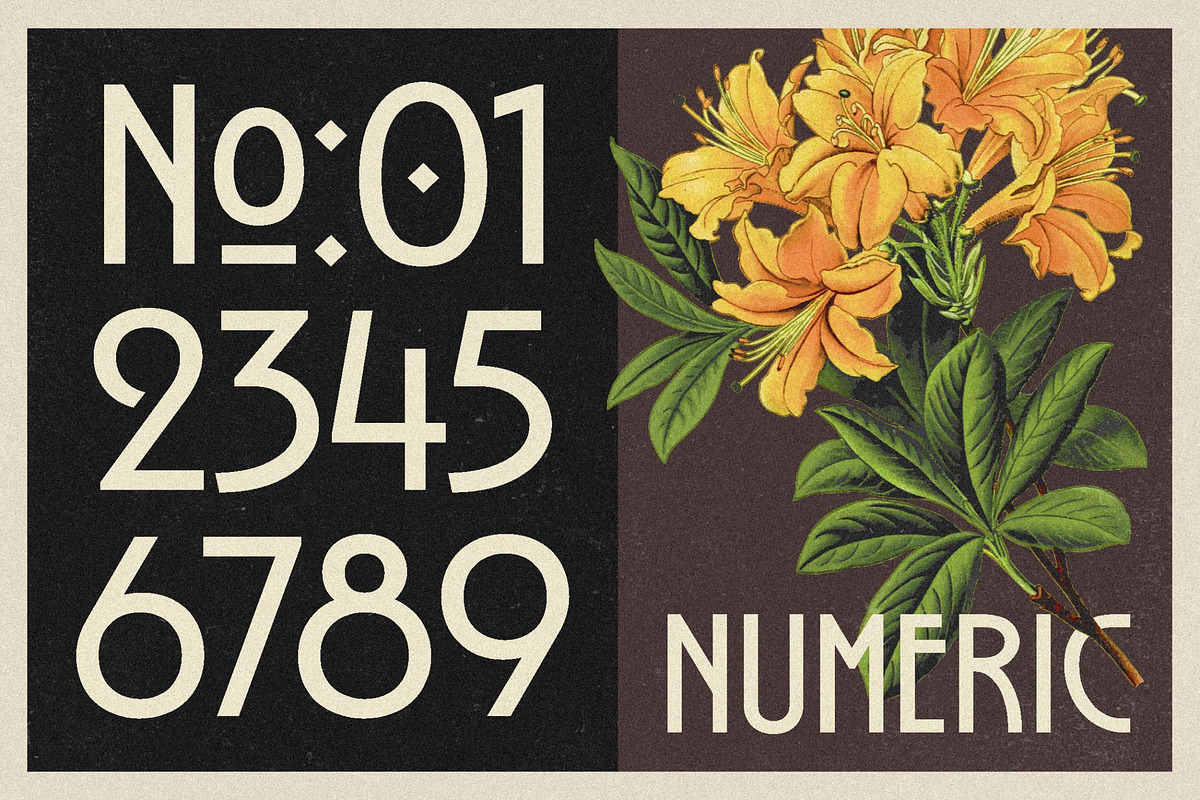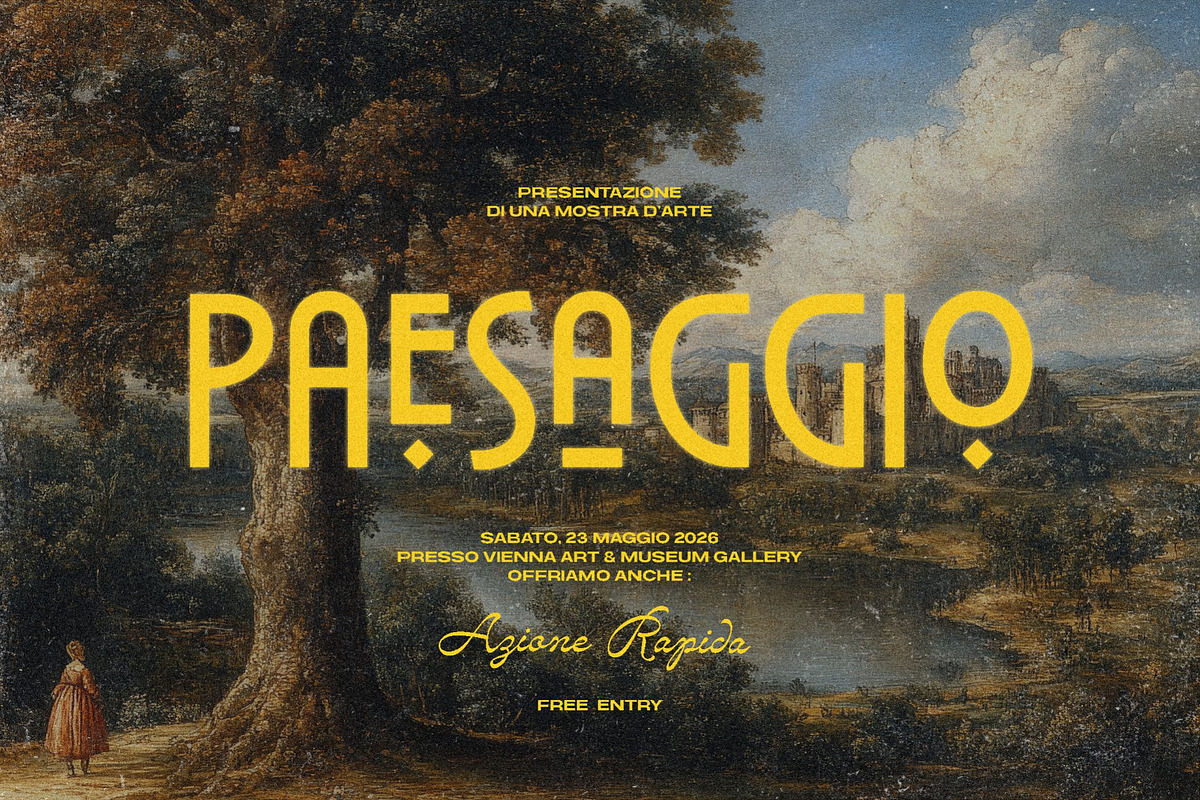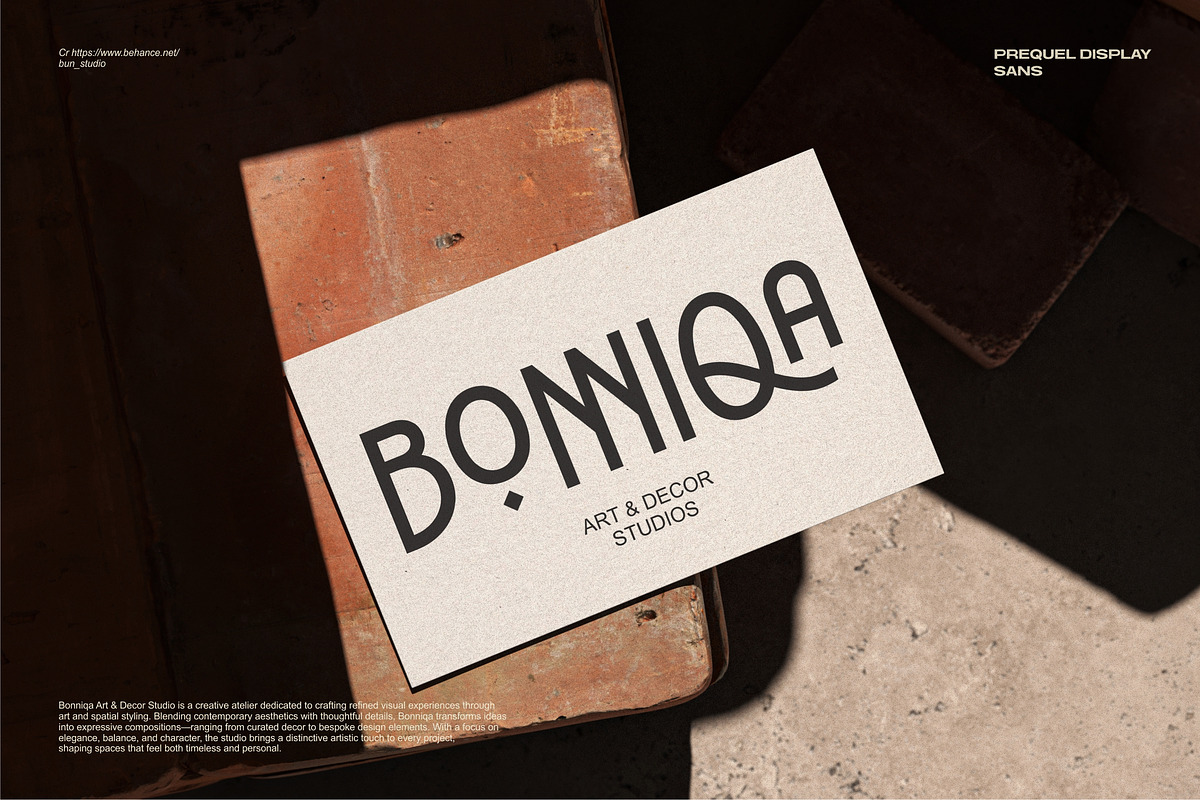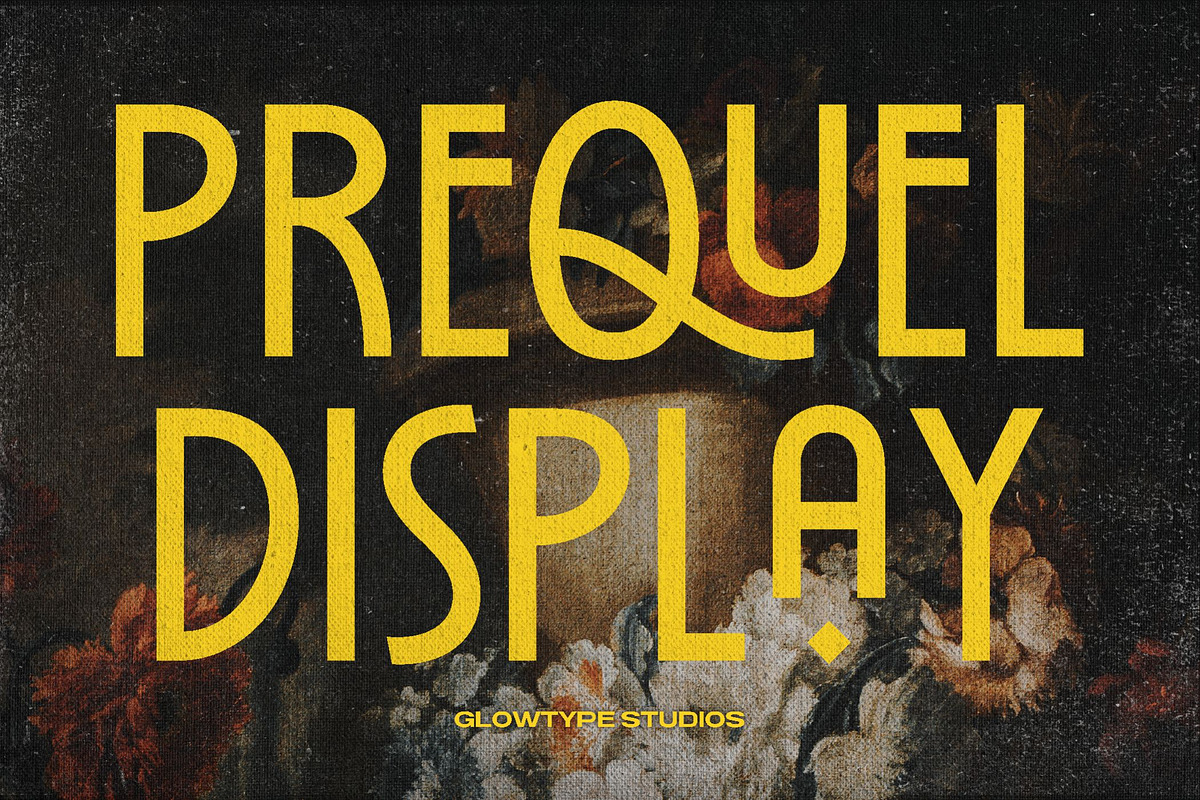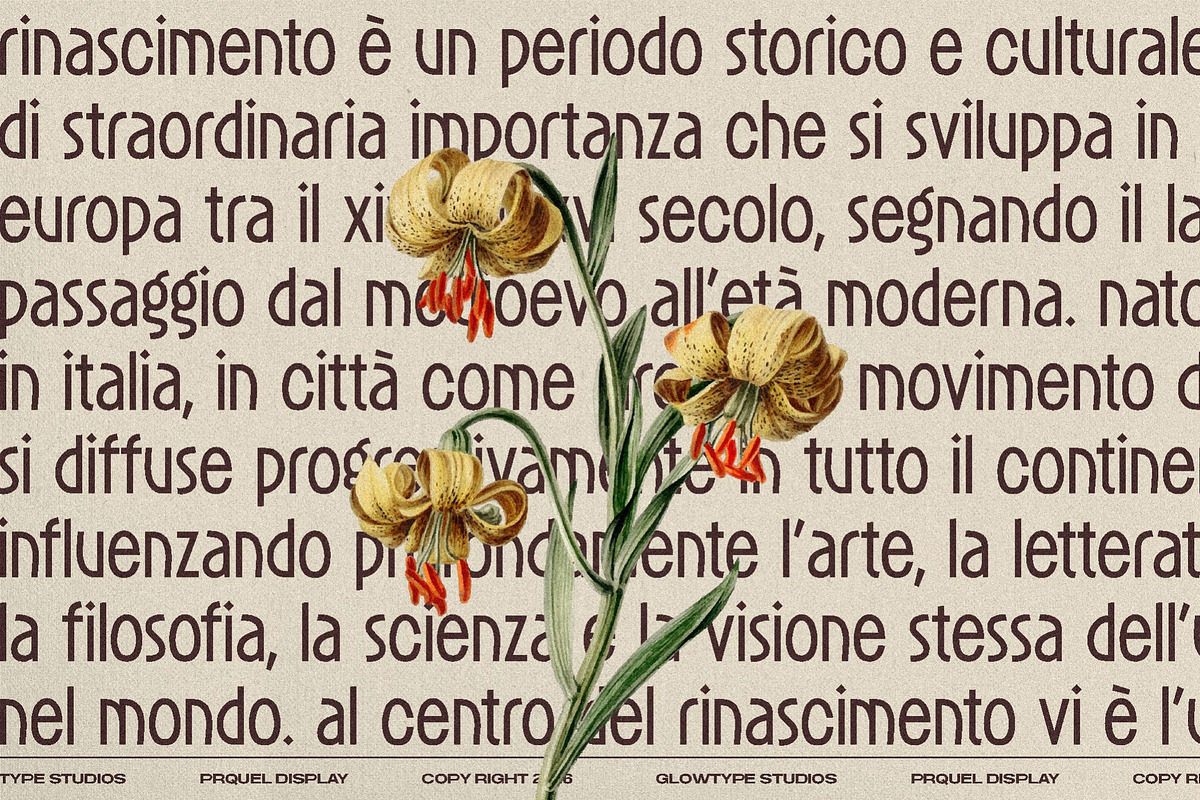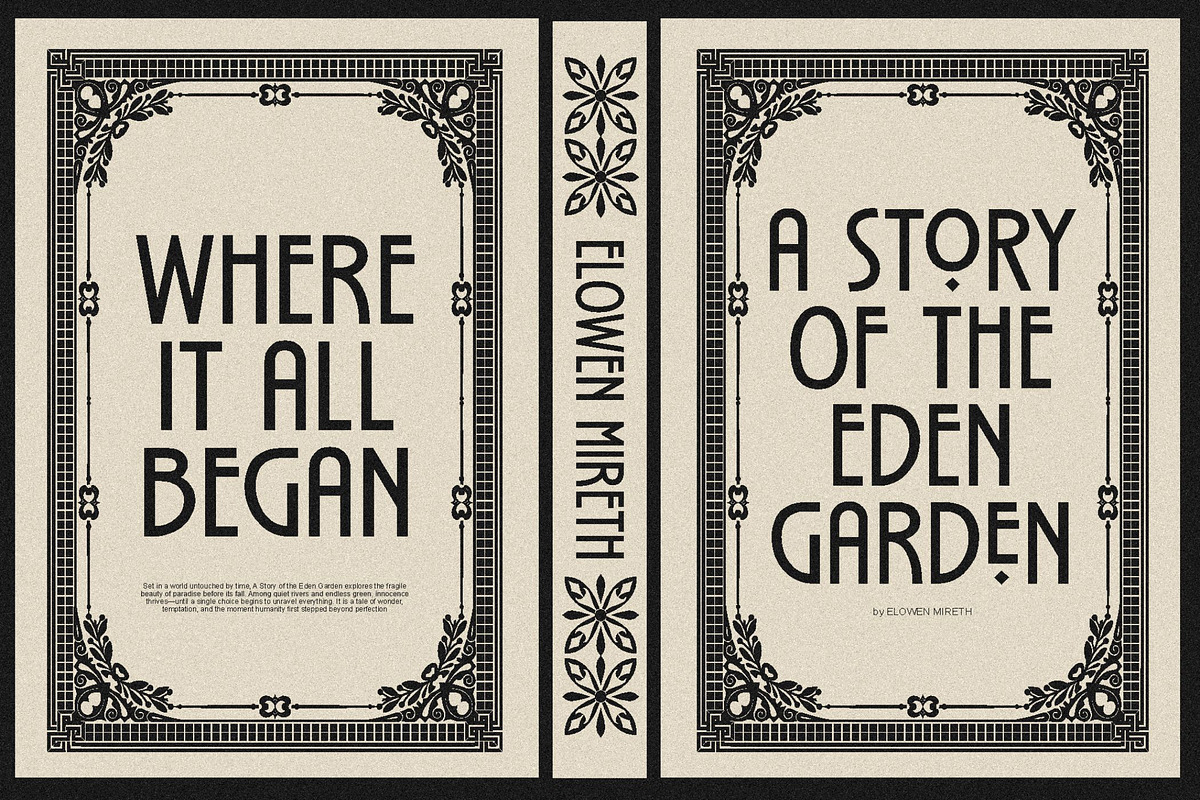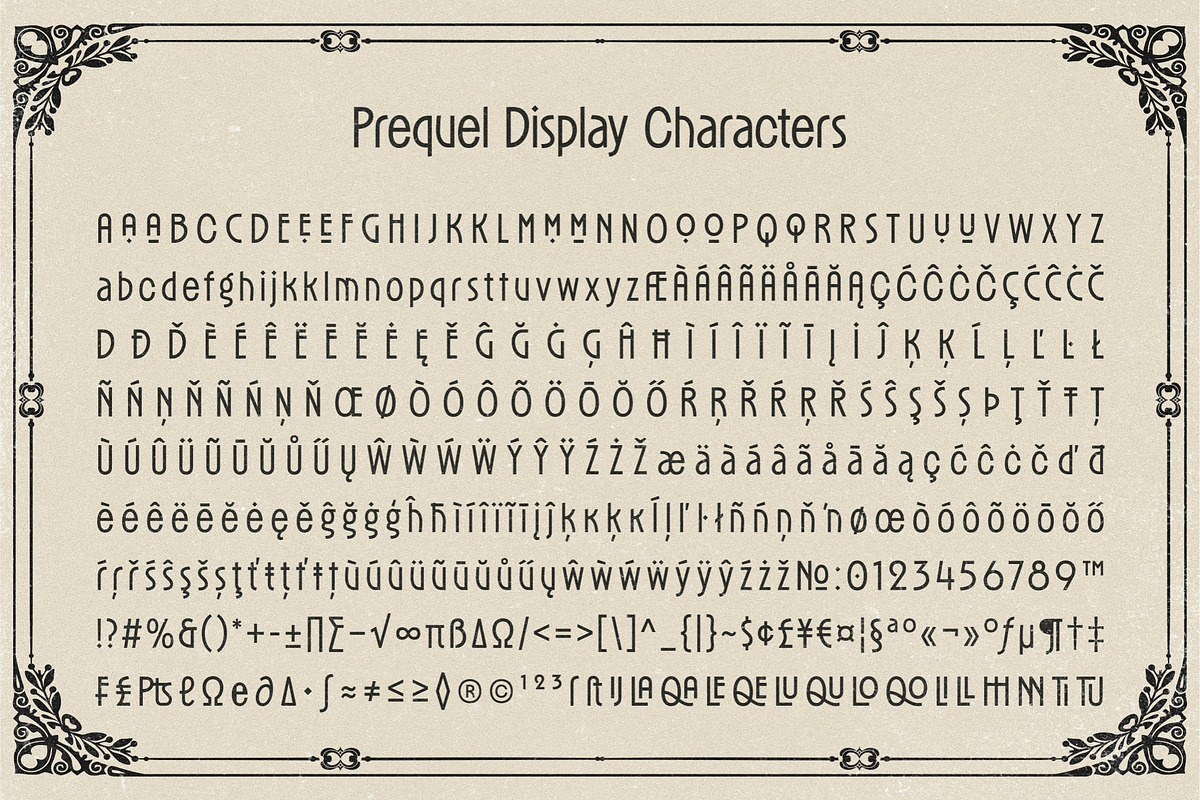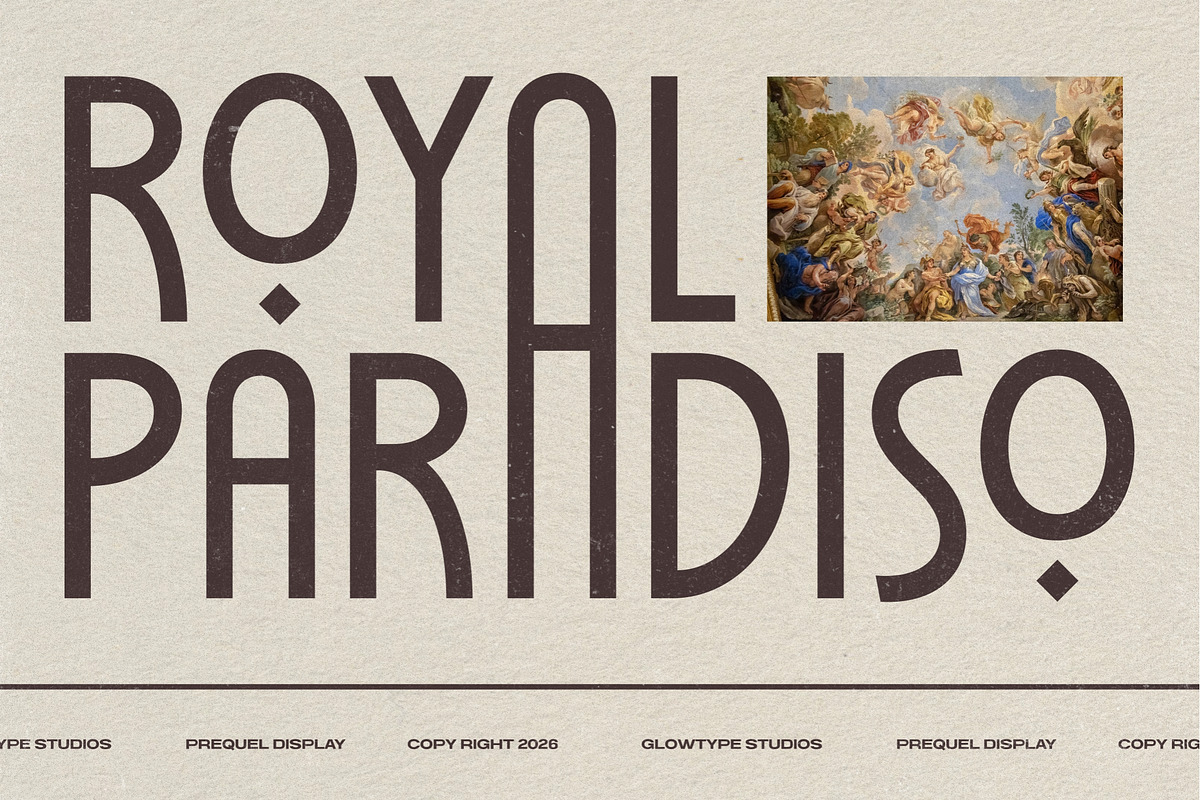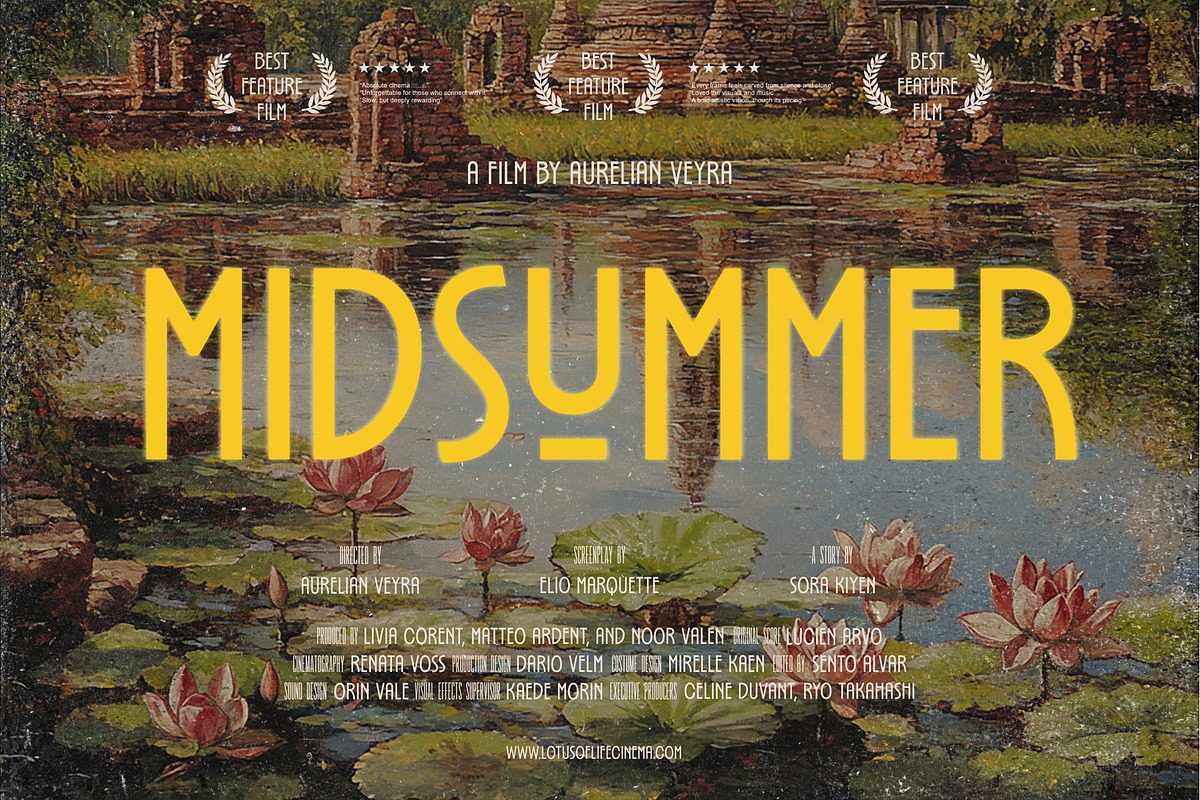
PREQUEL DISPLAY
Prequel is a contemporary sans-serif typeface defined by its refined minimalism and soft geometric clarity. Its construction balances clean vertical stress with subtly rounded terminals, creating a tone that feels both modern and approachable.
The letterforms are carefully proportioned to maintain visual harmony across uppercase and lowercase, while distinctive details such as the gentle curvature in the lowercase set and the open, breathable spacing enhance legibility and rhythm.
Designed with versatility in mind, Prequel performs seamlessly across display and text applications, making it well-suited for editorial design, branding systems, and digital interfaces. Its quiet sophistication and controlled expressiveness position it as a timeless tool for designers seeking clarity with character.